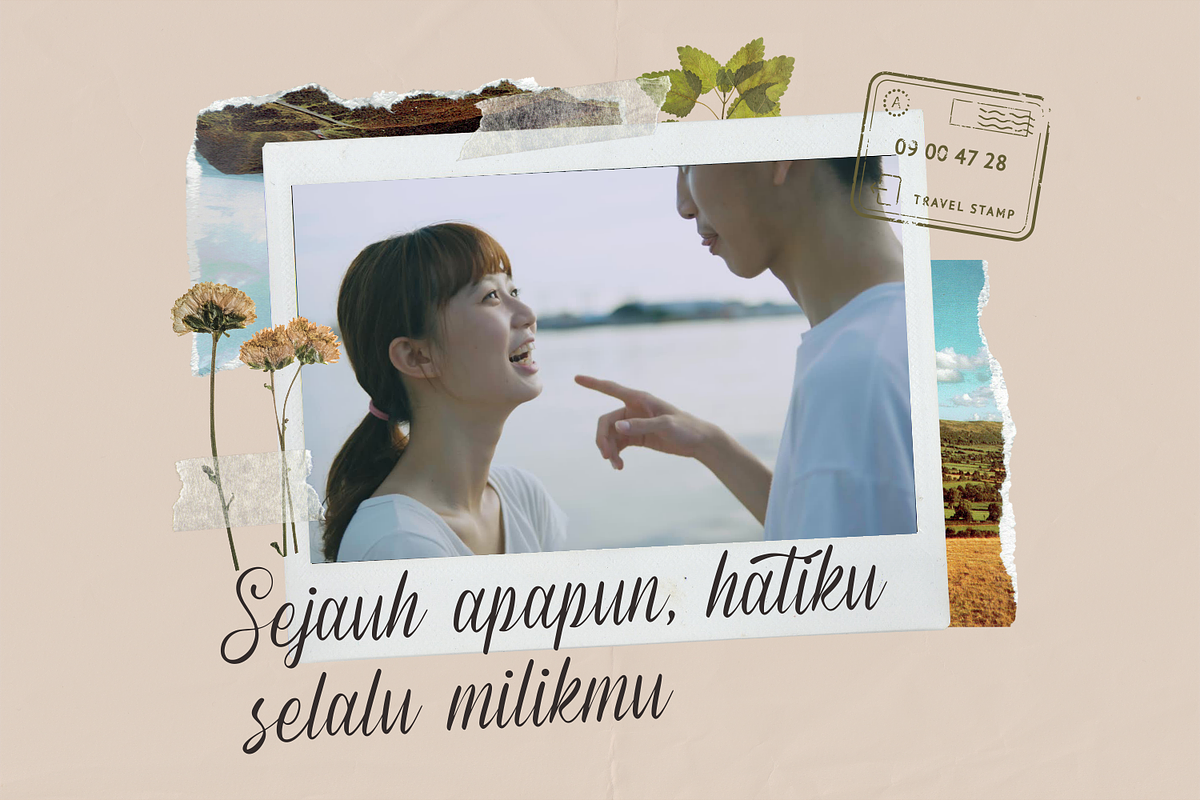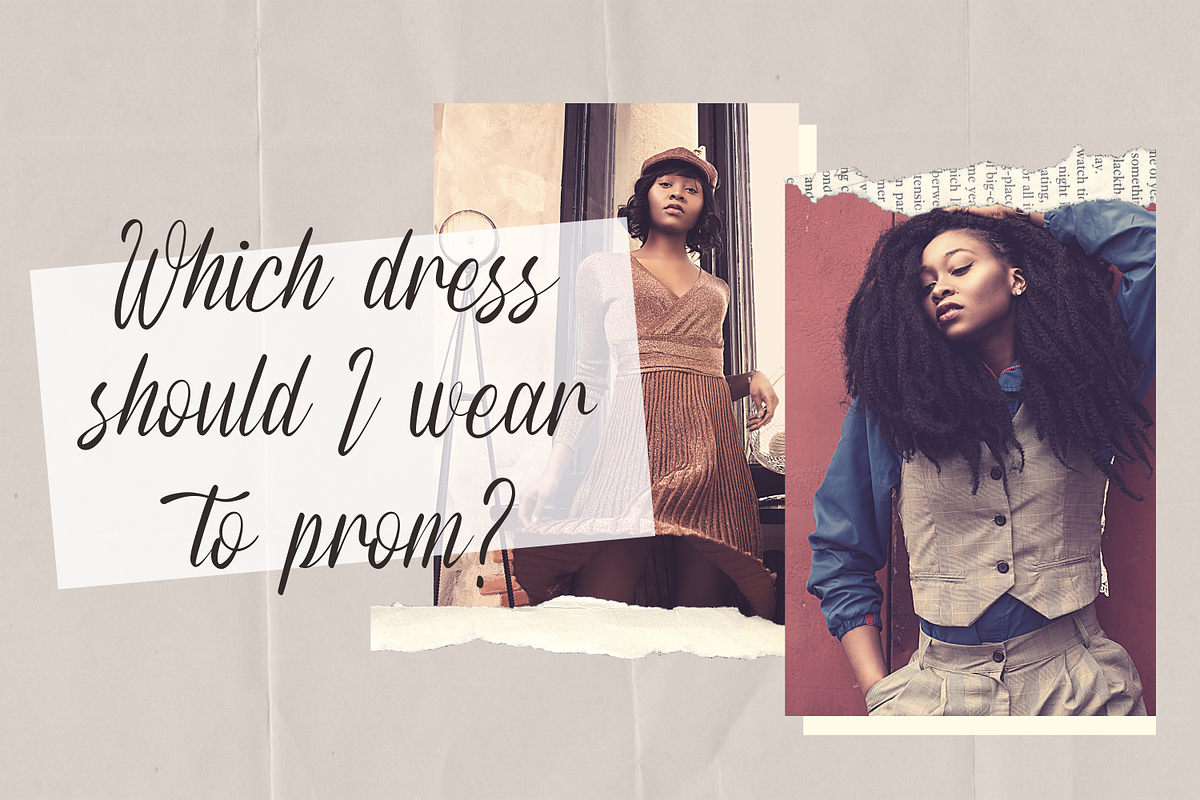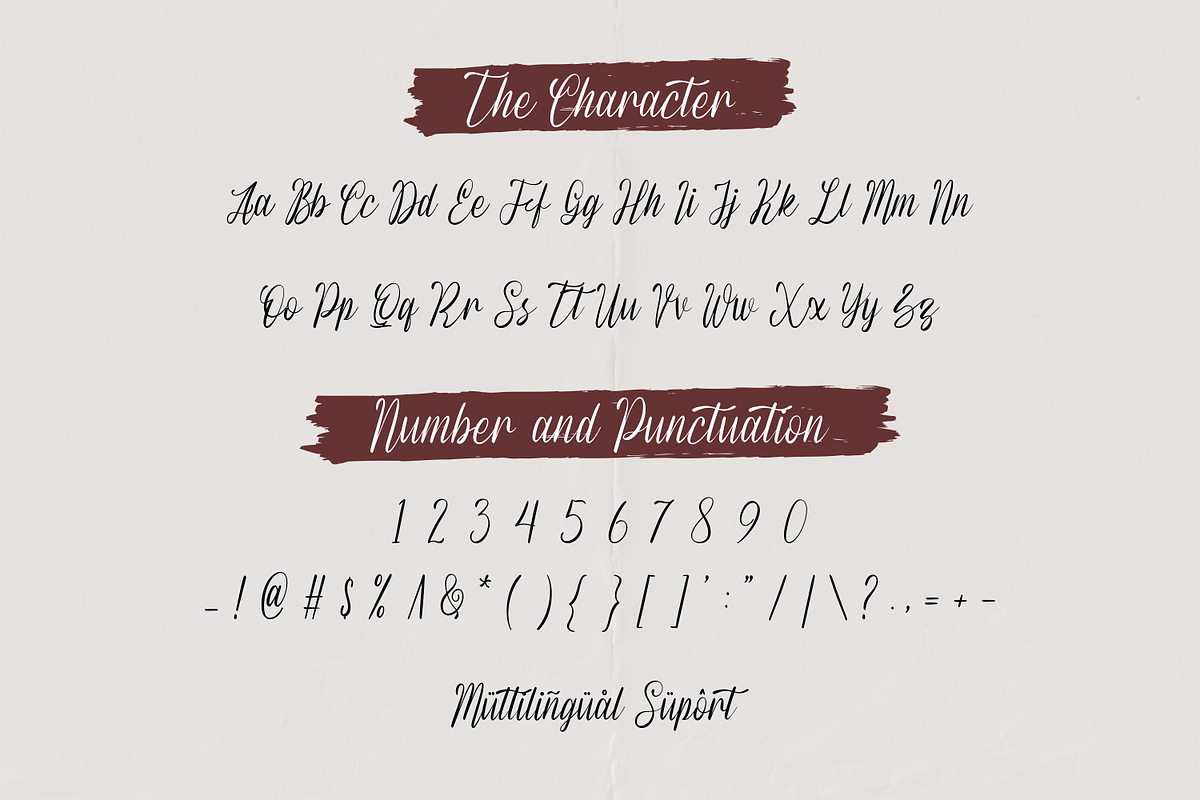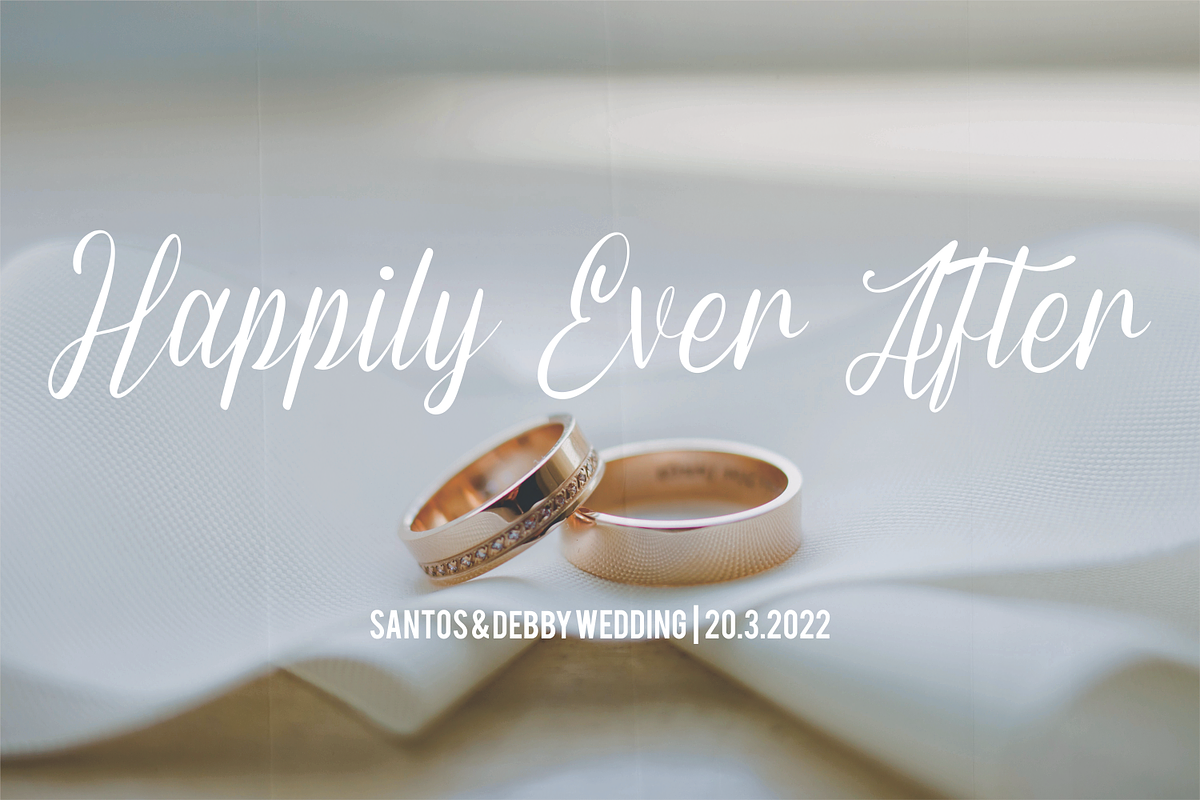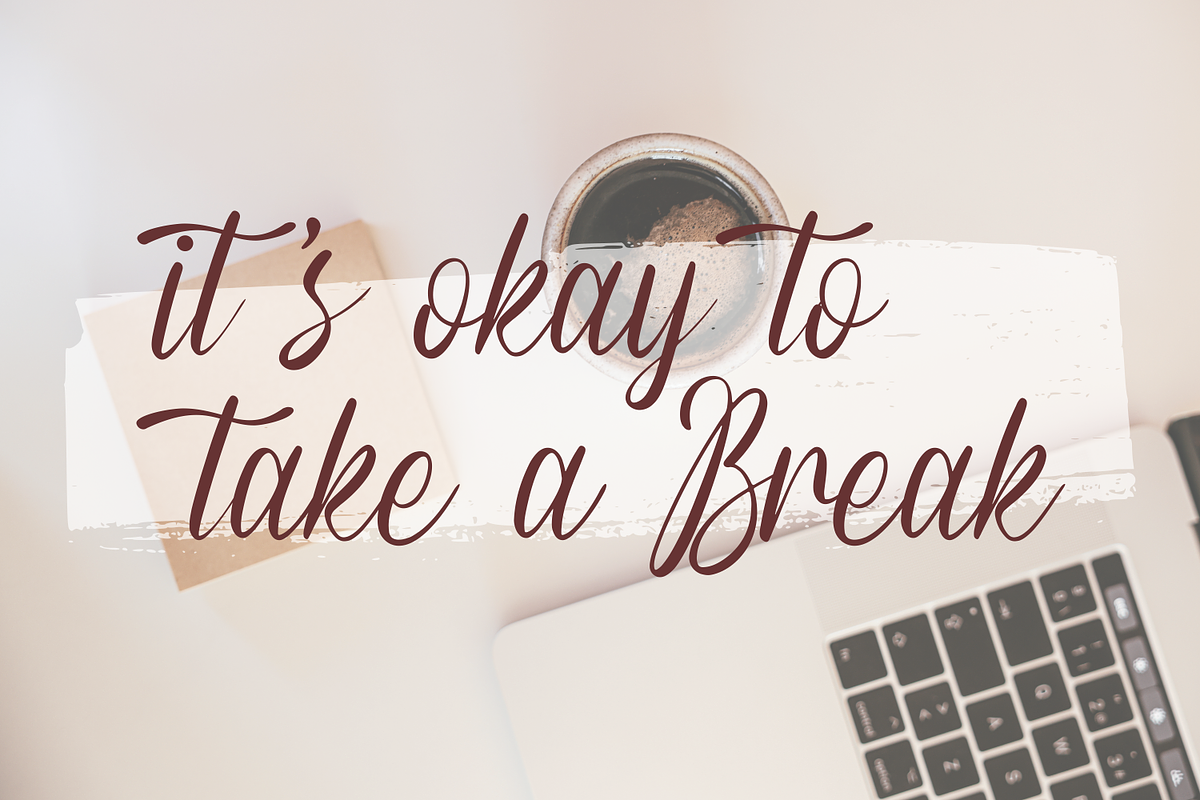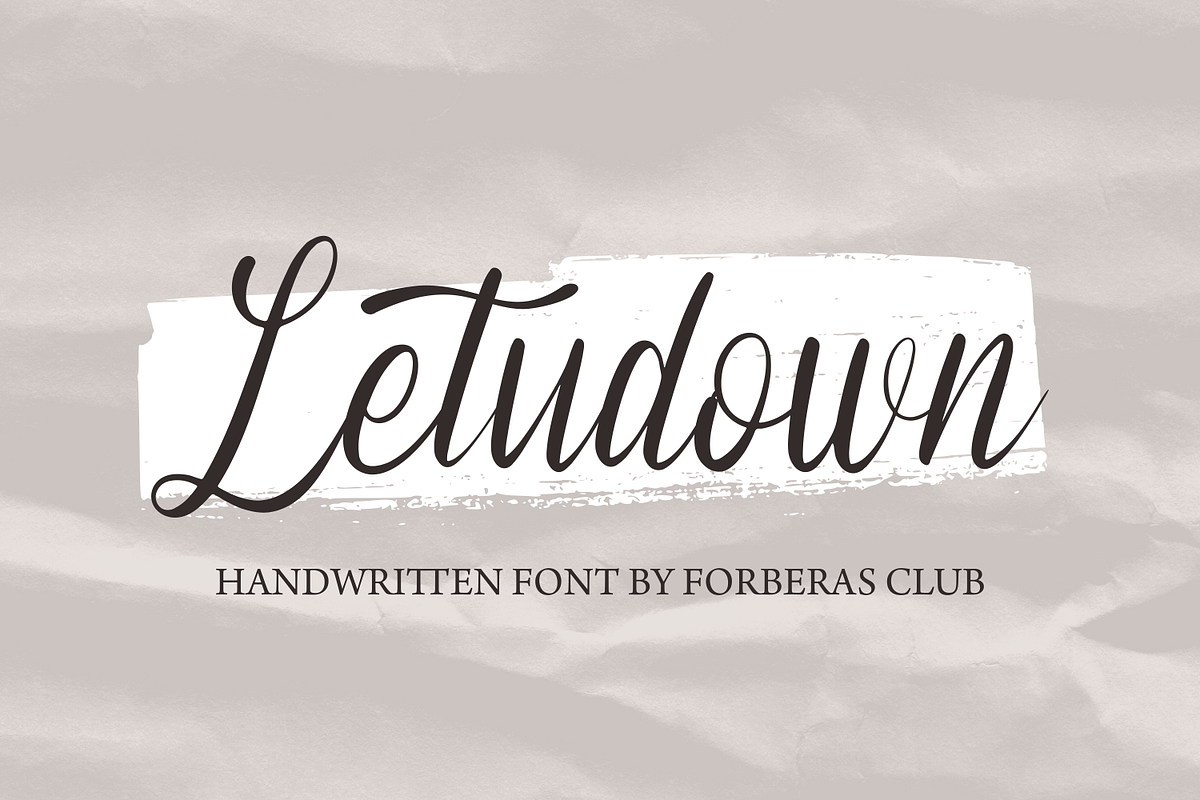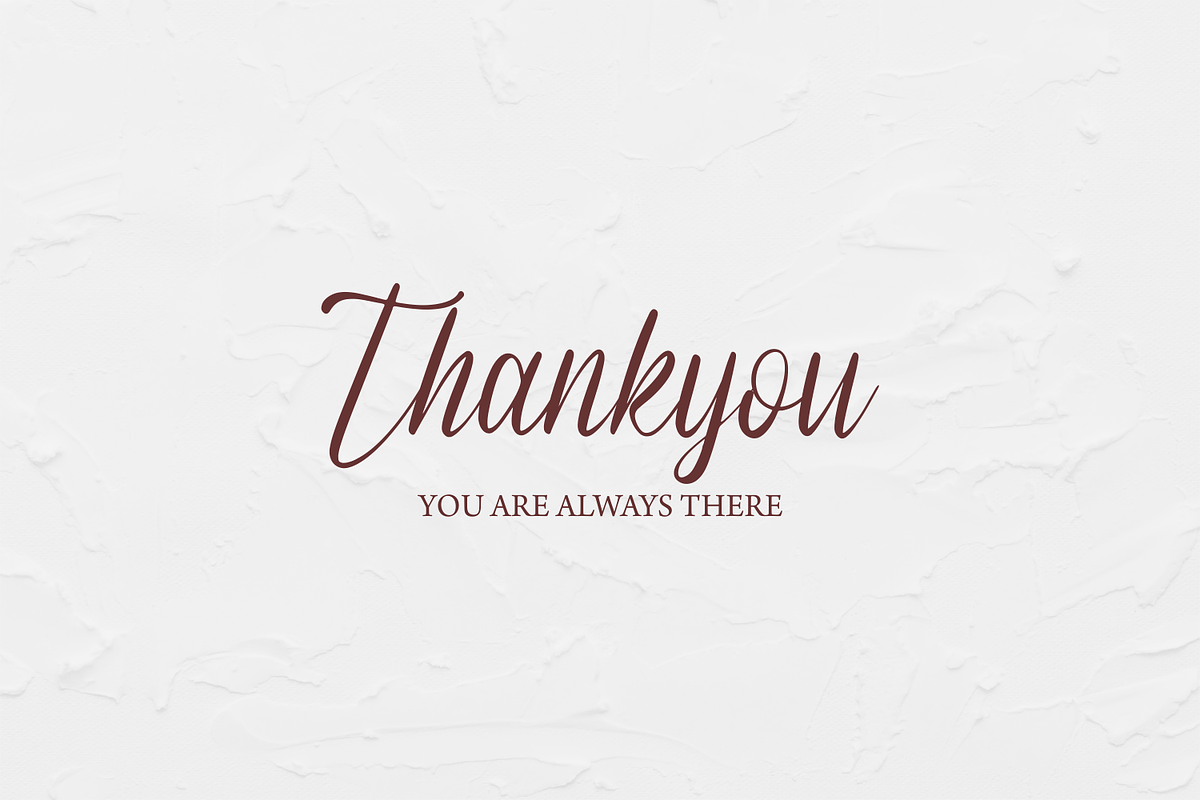
Letudown | Special Handwriting
Introducing Letudown by Forberas
Modern and beautiful handwritten script font! Great for wedding greeting cards, logos, branding materials, Invitation, business cards, quotes, posters, Cricut artwork and more!